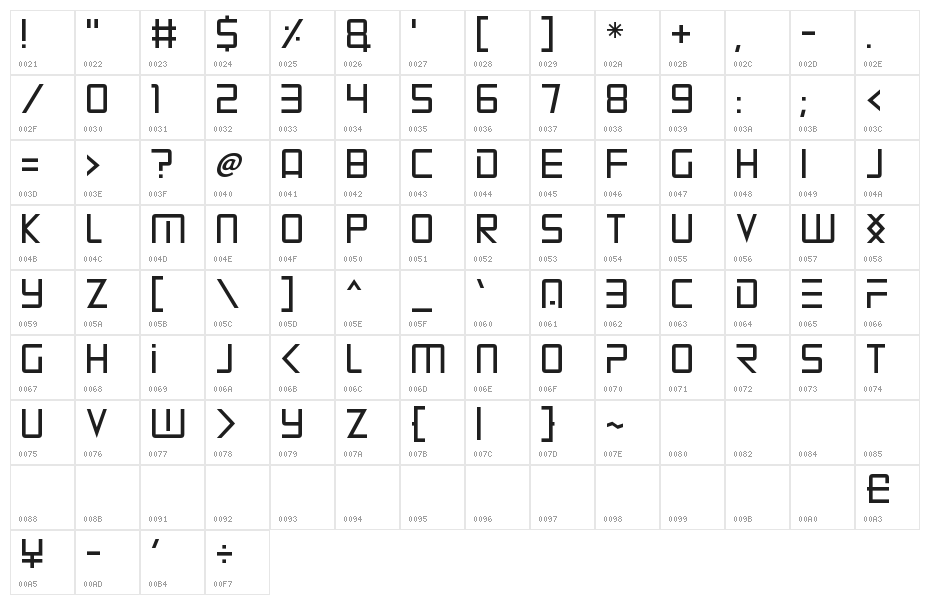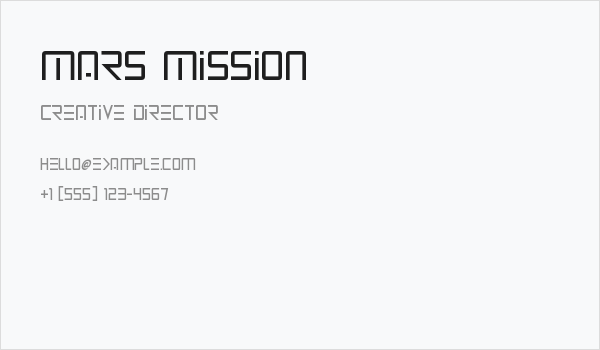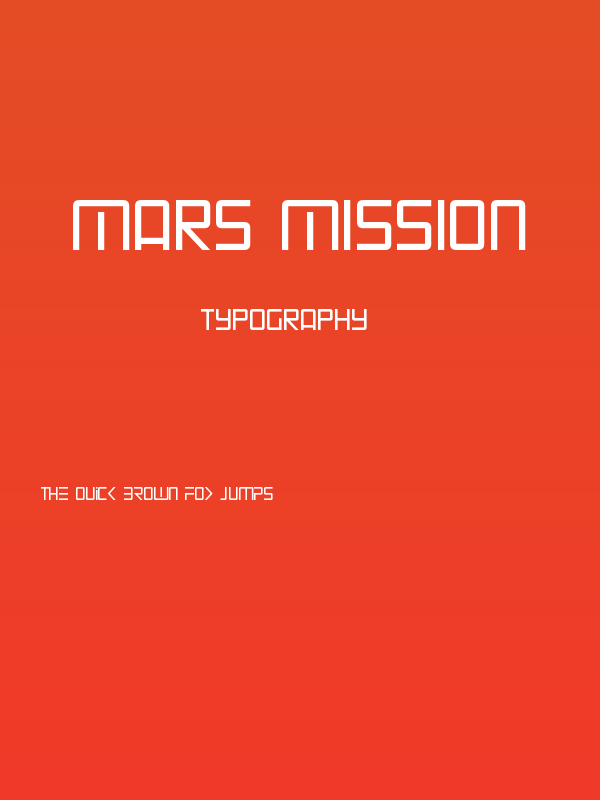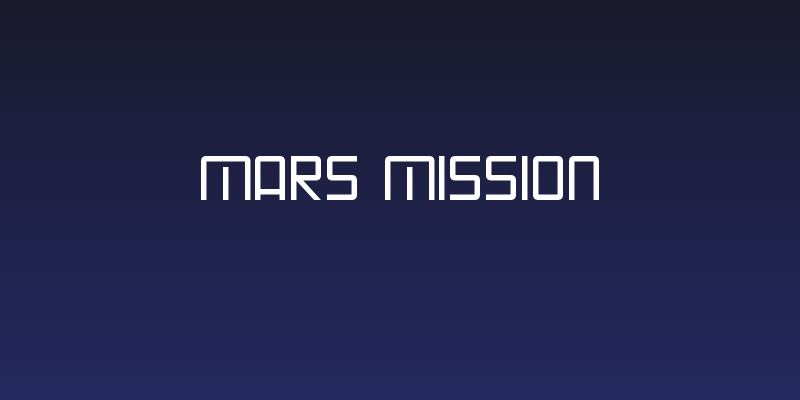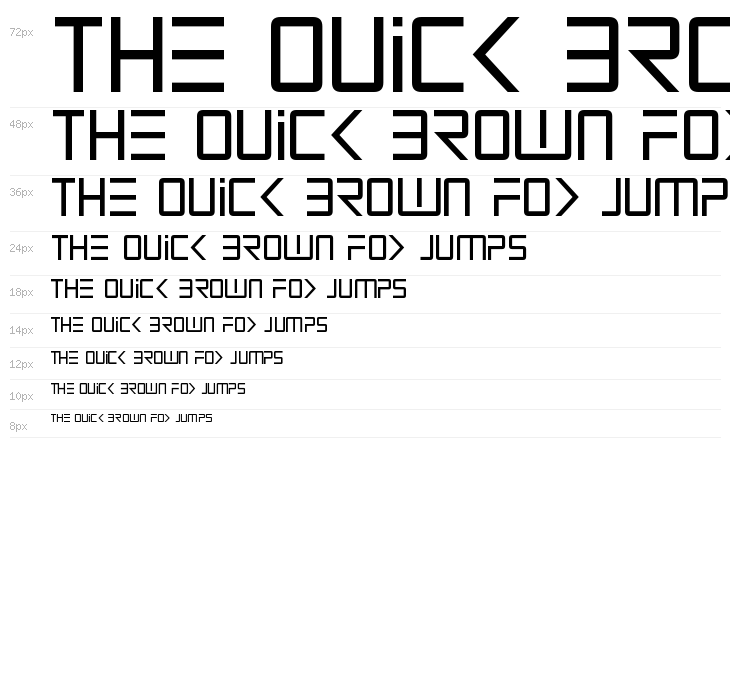
Mars Mission Font
Mars Mission Description
This font exhibits a futuristic and geometric style, characterized by its clean lines and angular shapes. The uppercase letters are bold and structured, with a uniform height that gives a sense of stability and modernity. The lowercase letters maintain the geometric theme, offering a consistent and cohesive look across the alphabet. Numbers are similarly designed, with a focus on readability and symmetry. The special characters complement the overall aesthetic, ensuring versatility in various design contexts. This font is ideal for projects that require a modern and technical appearance, such as technology branding, sci-fi themes, or digital interfaces.
| Overall Style | Futuristic, Geometric |
| Use Case | Headlines, Logos, Digital Interfaces |
| Proposed Projects | Ideal for technology branding, sci-fi themes, digital interfaces, and modern advertising. |